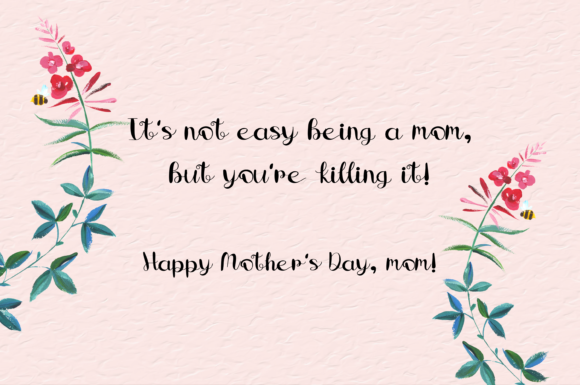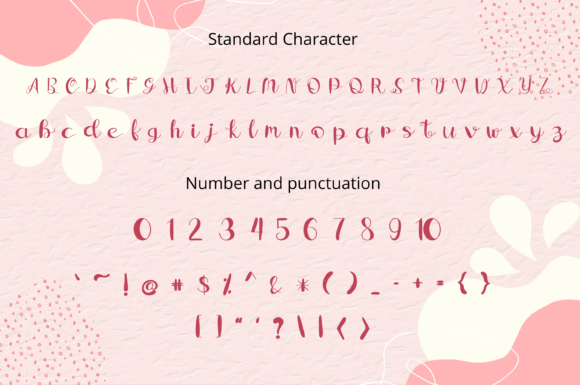
Lovely Mother Style Font
db-ku.com - Script & Handwritten -- Lovely Mother Style is a whimsical and clean handwritten font. It can easily be matched to an incredibly large set of projects, so add it to your creative ideas and notice how it makes them stand out!